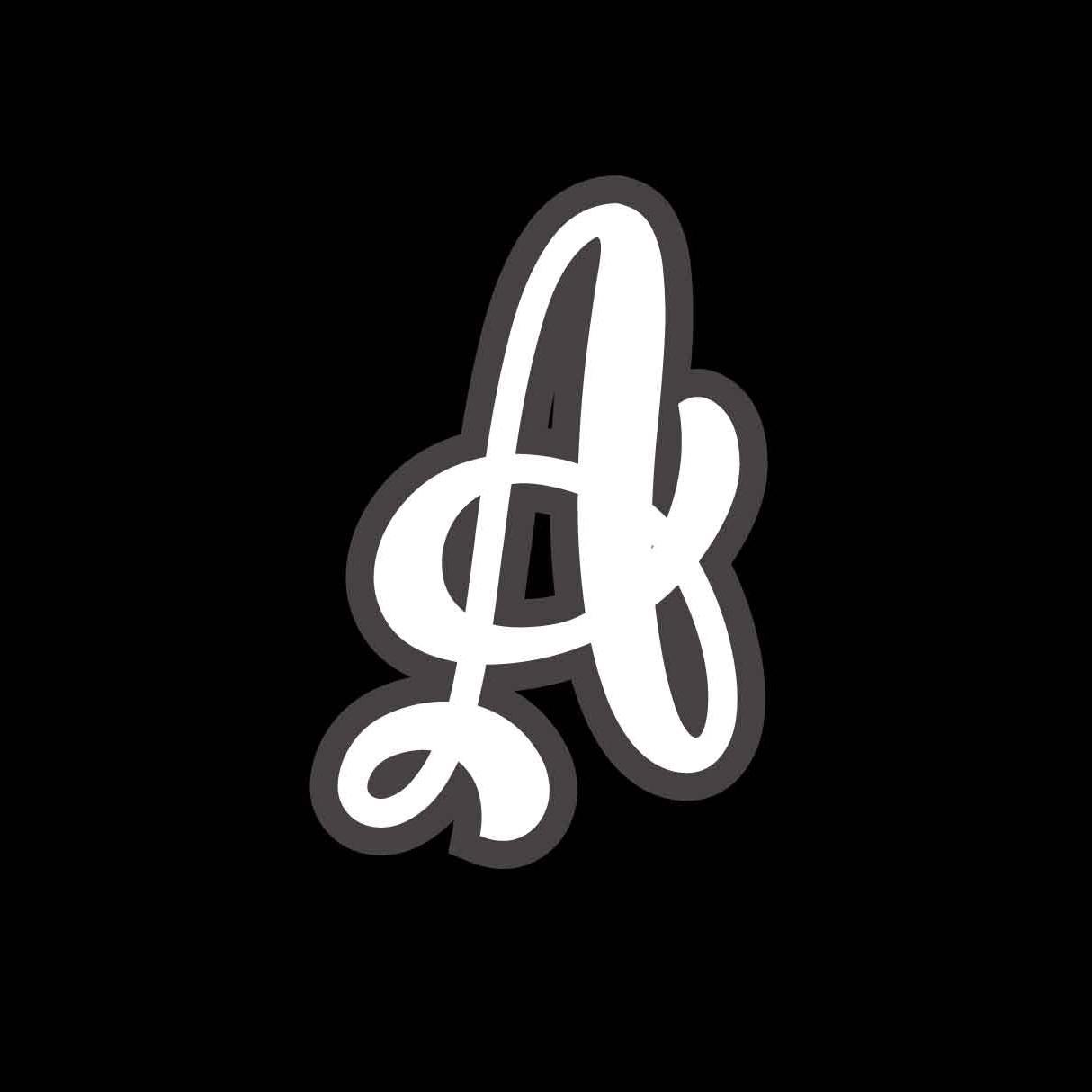
Delmone & Mortalue Font Description
Delmone & Mortalue is a stunning and comprehensive duo font (script and serif), ideal for giving your projects a branded but friendly feel. The two included styles can be combined together perfectly but are also beautiful on their own.